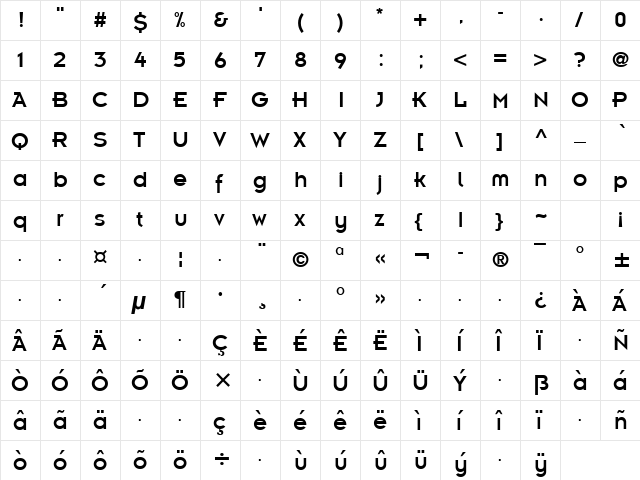
Ensign Regular
Design Context for Ensign Typeface
Ensign offers clean, dependable letterforms without strong stylistic allegiance, making it a practical choice for designers who need flexibility.
Pro Tip: Use Ensign in both headline and body roles to test its range before committing to a single application.